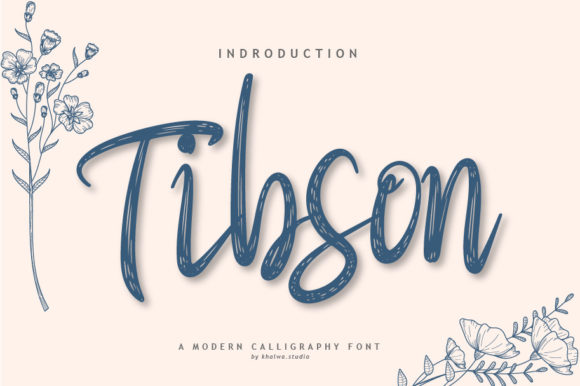
Tibson Script: A Brush of Authenticity for Your Brand
There's a certain magic in handwritten text that digital precision often misses. It carries warmth, personality, and an immediate sense of human touch. Tibson Script is a premium font that captures this magic beautifully, offering a brushed handwritten style that feels both authentic and refined. It's not just another script font; it's a design asset crafted to inject life and character into your projects. Each letterform in Tibson Script has its own unique flair, with natural variations in stroke weight and a fluid, organic rhythm that makes digital text feel genuinely handcrafted.
Where Tibson Script Truly Shines
This creative font finds its sweet spot in projects where you want to establish an emotional connection. Think beyond just typing out words. Tibson Script excels as a display font, making it perfect for grabbing attention in logo design, hero sections on websites, or impactful quotes in editorial layouts. Its personality is versatile enough for a boutique bakery's branding, a wedding invitation suite, a lifestyle blogger's header, or the packaging for a artisanal skincare line. It brings a level of craftsmanship to social media graphics that can make your posts stand out in a crowded feed, turning a simple announcement into something visually compelling.
For brand identity, Tibson Script can be a cornerstone. It communicates approachability, creativity, and a hands-on quality. A small business owner might use it for their main wordmark to convey personality, while a marketer could leverage it for call-to-action buttons or email subject lines to increase open rates. In packaging design, it adds a tactile, personal feel that suggests care and quality. However, its strength lies in strategic, accentuated use. It's a headline hero, not a body copy workhorse. Using it for long paragraphs would sacrifice readability, but when paired wisely, it elevates the entire design.
Practical Guidance for Using This Handwritten Font
Choosing a font like Tibson Script is just the first step. Using it effectively requires a bit of strategy. First, always consider your project's context. Is the tone casual, elegant, or playful? Tibson Script leans towards a friendly, artistic elegance. Test it alongside other design assets in your toolkit. A classic serif font can provide a beautiful contrast for body text, while a clean sans serif font can offer a modern, balanced pairing. This concept of font pairing is crucial; Tibson Script needs a stable partner to ensure overall readability and visual hierarchy.
Next, explore what's included with the typeface. A quality commercial font like Tibson Script often comes with more than just the basic alphabet. Look for stylistic alternates, ligatures, and swashes. These are the tools that allow you to customize the text, making certain letter combinations flow more naturally and adding those final touches of authenticity. Always test the font at the size you intend to use it. What looks gorgeous in a large logo might become a blurry blob at a small size on a mobile screen. This is especially important for web design, where clarity is key.